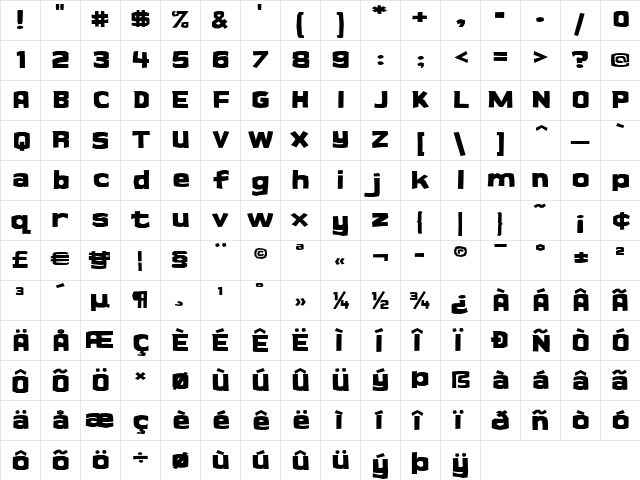
Cueva Thick
Design Context for Cueva Typeface
Cueva takes a measured approach to typography — its balanced proportions and neutral character make it a reliable workhorse for both digital and print work.